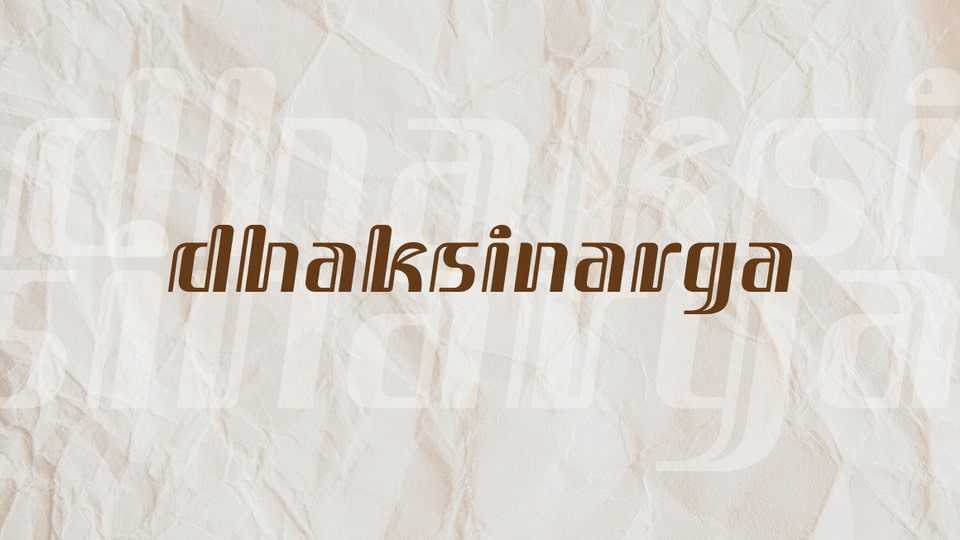
Download Dhaksinarga font, a brand new typeface inspired by Javanese script or Hanacaraka style. With some modifications but still characterizing Hancaraka style, Dhaksinarga has come to complement the existing hanacaraka style fonts.